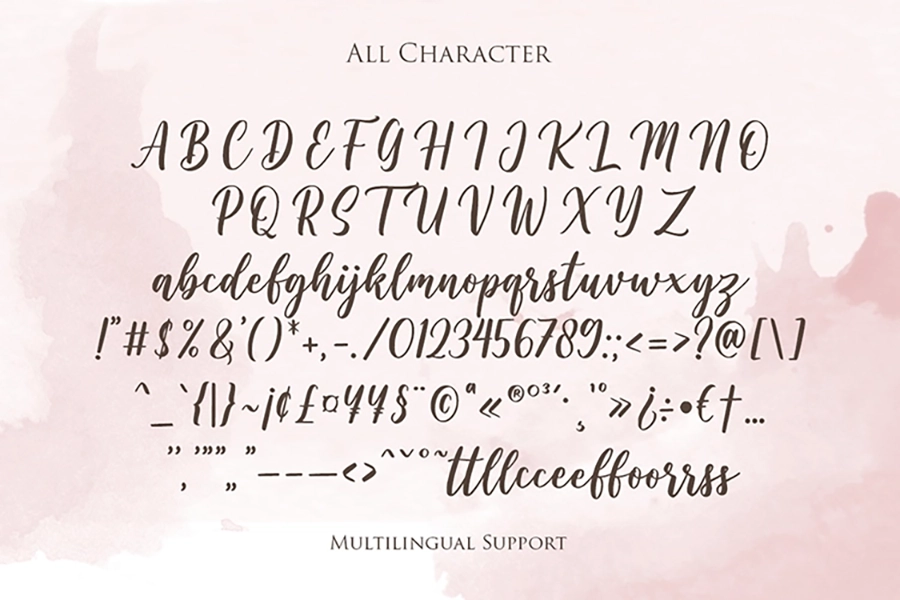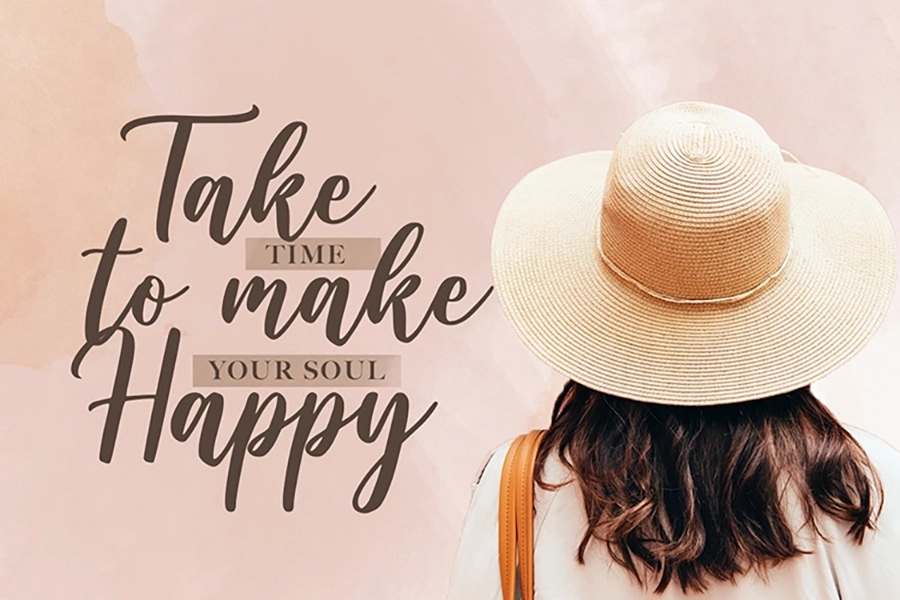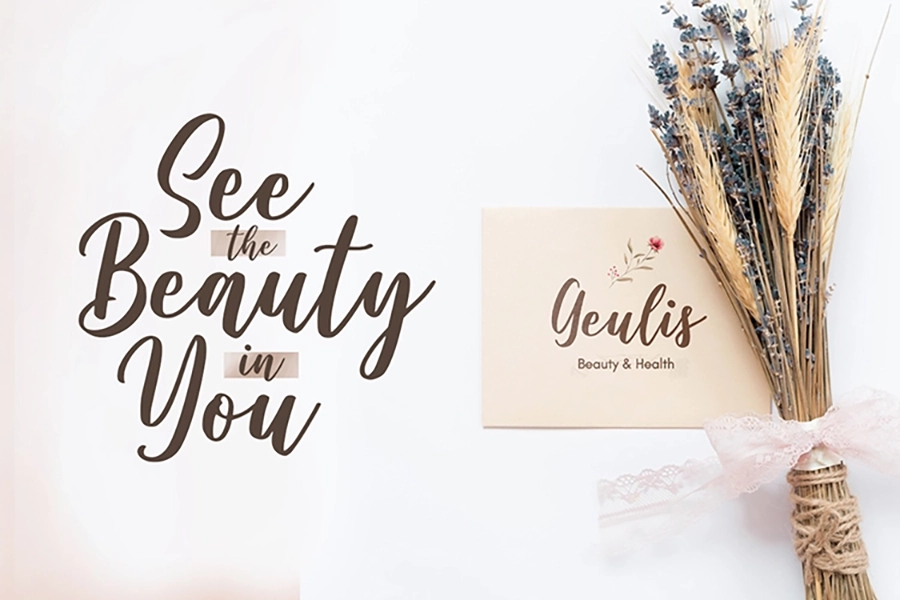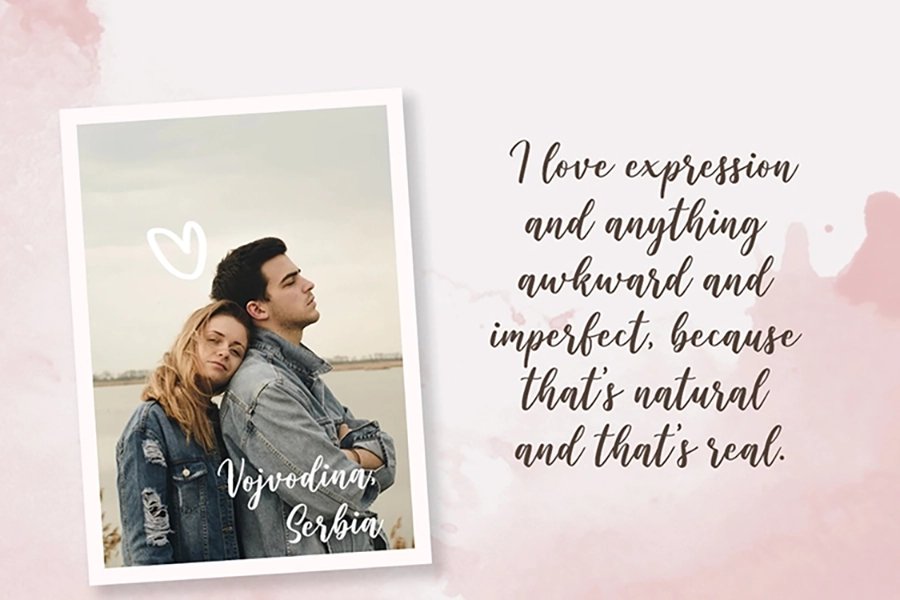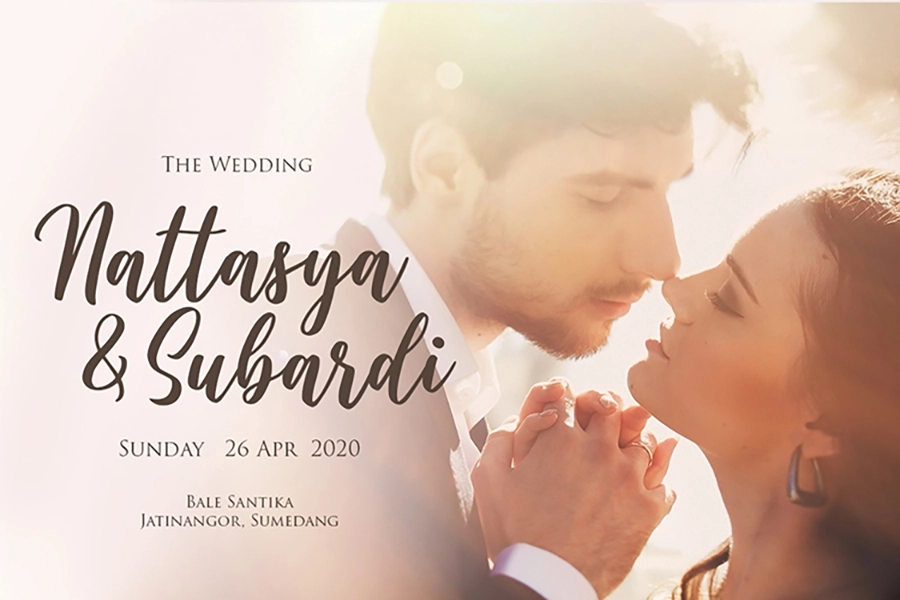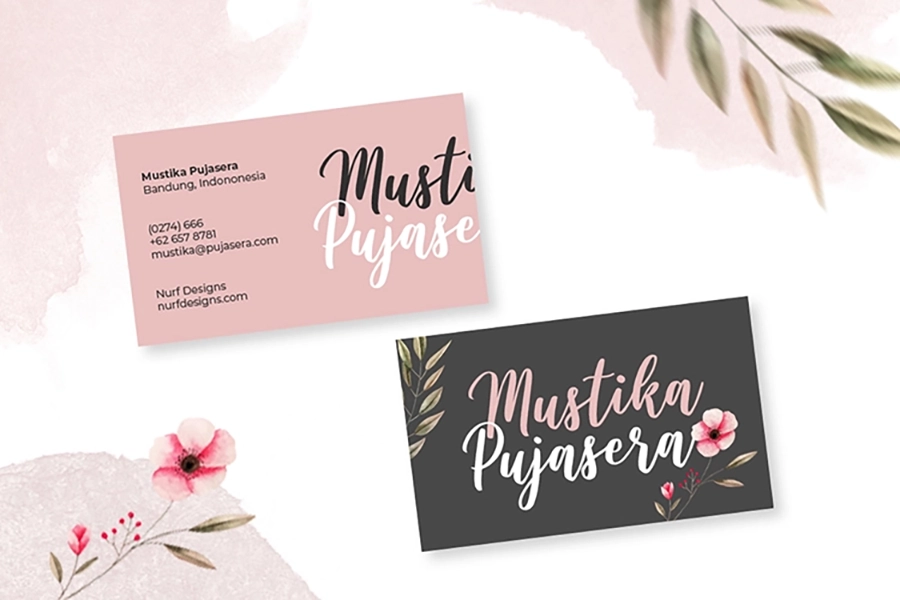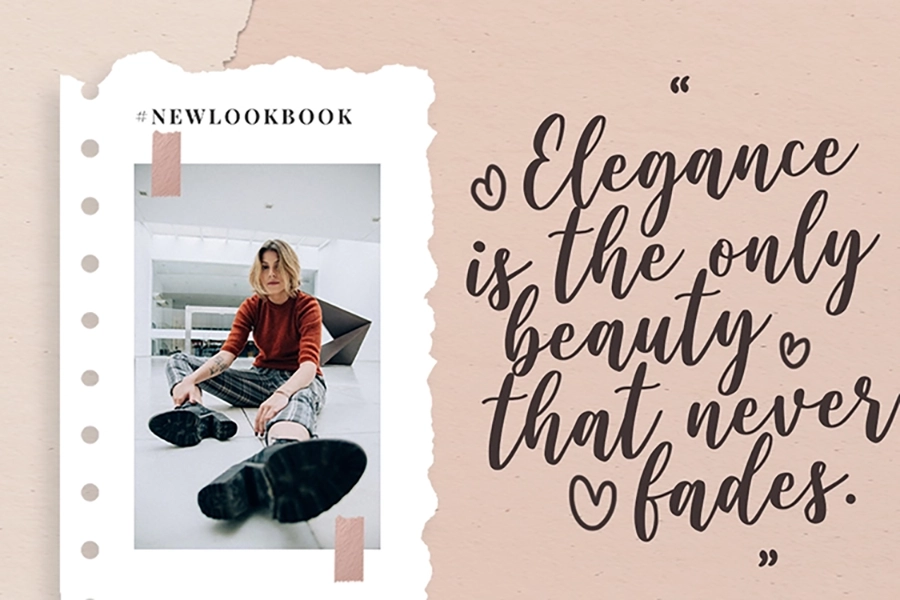
Wishper Script – Modern Calligraphy Script
Wishper Script is a cute and casual handwritten font with an incredibly friendly feel. Whether you’re looking for fonts for Instagram or calligraphy scripts for DIY projects, Wishper Script will turn any creative idea into a true piece of art!
This Font Support Language:
Afrikaans, Albanian, Asu, Basque, Bemba, Bena, Breton, Catalan, Chiga, Colognian, Cornish, Croatian, Czech, Danish, Dutch, Embu, English, Esperanto, Estonian, Faroese, Filipino, Finnish, French, Friulian, Galician, Ganda, German, Gusii, Hungarian, Inari Sami, Indonesian, Irish, Italian, Jola-Fonyi, Kabuverdianu, Kalaallisut, Kalenjin, Kamba, Kikuyu, Kinyarwanda, Latvian, Lithuanian, Lower Sorbian, Luo, Luxembourgish, Luyia, Machame, Makhuwa-Meetto, Makonde, Malagasy, Maltese, Manx, Meru, Morisyen, Northern Sami, North Ndebele, Norwegian Bokmål, Norwegian Nynorsk, Nyankole, Oromo, Polish, Portuguese, Quechua, Romansh, Rombo, Rundi, Rwa, Samburu, Sango, Sangu, Scottish Gaelic, Sena, Serbian, Shambala, Shona, Slovak, Soga, Somali, Spanish, Swahili, Swedish, Swiss German, Taita, Teso, Turkish, Upper Sorbian, Uzbek (Latin), Volapük, Vunjo, Walser, Zulu